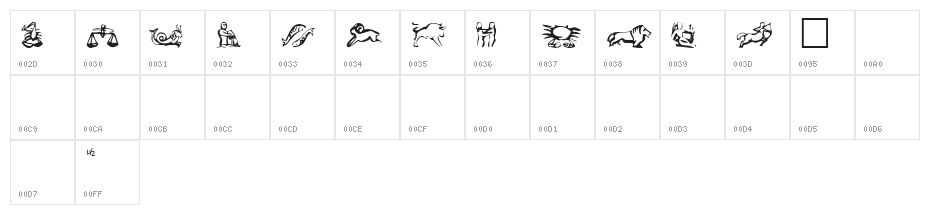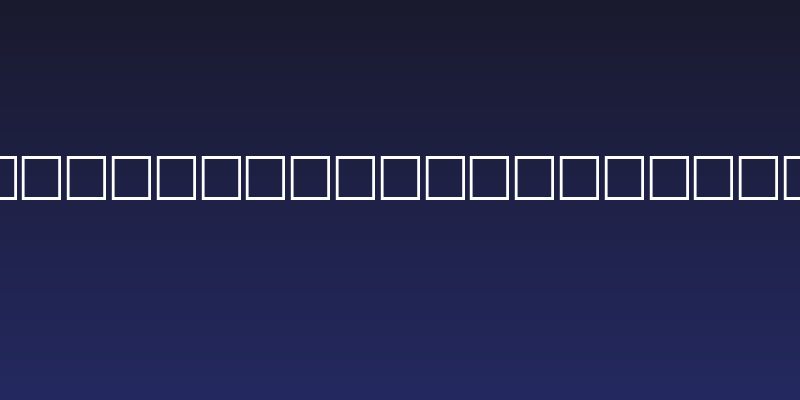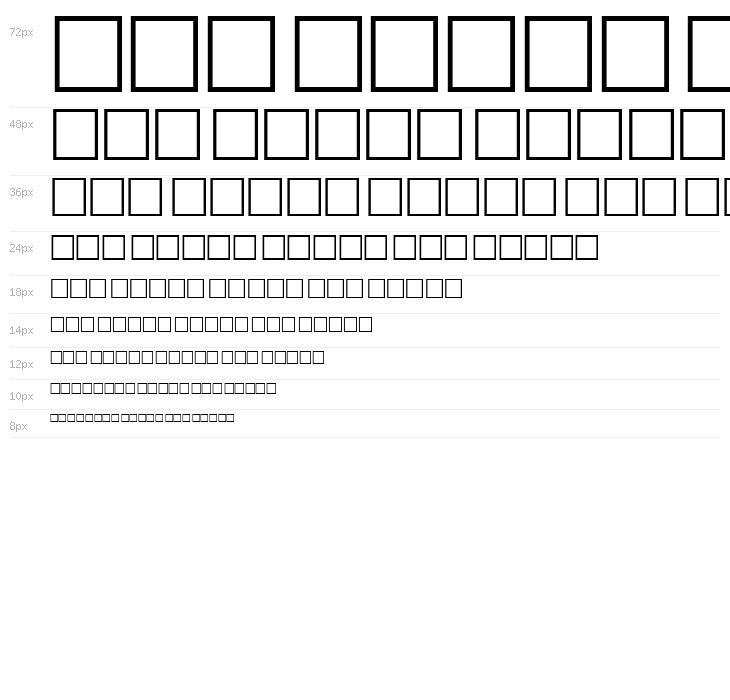
EileensLittleZodiac Font
EileensLittleZodiac Description
This font features a series of zodiac symbols, each intricately designed to represent the twelve astrological signs. The symbols are stylized with artistic flair, capturing the essence of each zodiac sign through unique and detailed illustrations. The font is decorative and visually engaging, making it ideal for projects that require a touch of mysticism or astrological themes. The symbols are evenly spaced, ensuring clarity and readability when used in various design contexts.
| Use Case | Logos, Posters, Decorative elements |
| Proposed Projects | Ideal for astrology-themed projects, horoscopes, mystical event invitations, and decorative posters. |